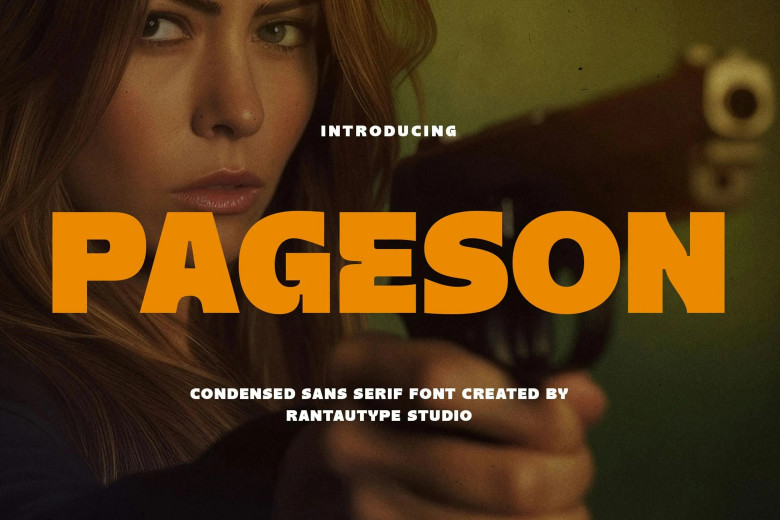
Pageson Font
Pageson is a competitive condensed design with high impact and its structure seems heavy set. It definitely has a strong feel that is good to work with for the next cool and awesome project. Pageson is ideal for any stylish and contemporary design ranging from logotype, adverts, water mark on a photo, stationeries, branding, display and magazine designs, cards, posters, corporate branding, products, labels, commercial works and many other works with a fun or formal look.
Pageson Sans Serif Font